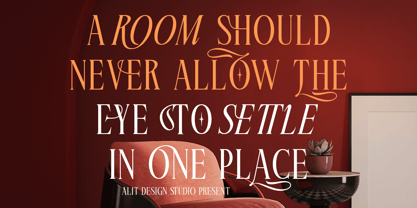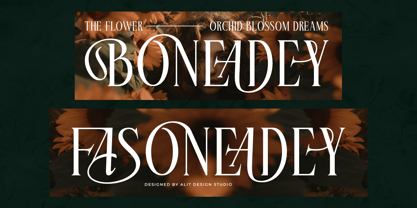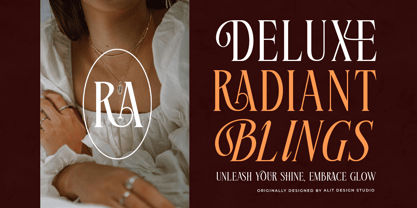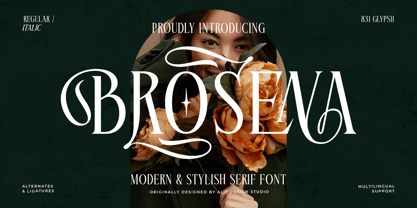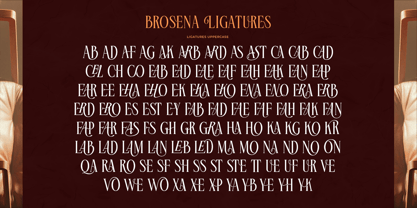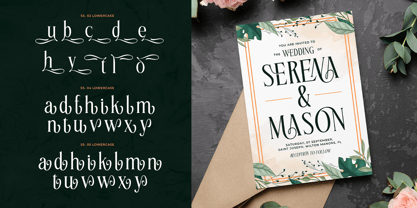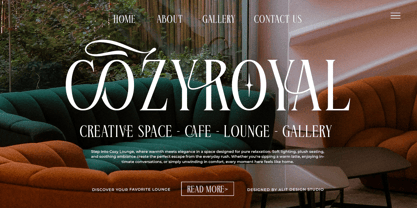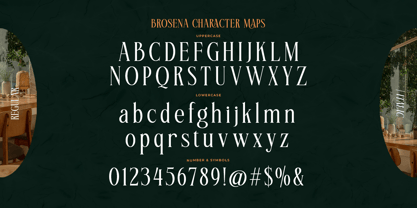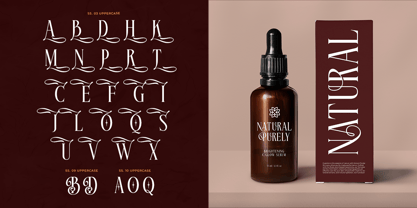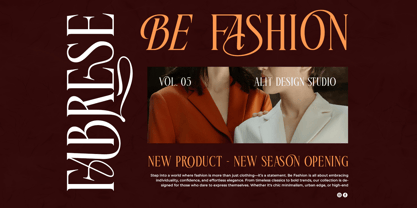
Brosena
The Brosena Font Family was designed by Alit Suarnegara and published by Alit Design. Brosena contains 2 styles and family package options. More about this family
Brosena Typeface
A perfect blend of classic elegance and modern design, Brosena Typeface is a versatile and sophisticated serif font designed to captivate. Whether you’re working on high-end branding, editorial layouts, or creative projects that demand a luxurious touch, Brosena brings unparalleled elegance to the table.
This typeface features two beautifully crafted styles—Regular and Italic—giving you the freedom to mix and match for diverse design needs. Each style is carefully designed with clean lines, subtle contrasts, and soft curves, making Brosena equally suitable for formal applications and creative expressions.
Charming Alternatives & Versatility
What sets Brosena apart are its charming alternative characters, which add unique personality to every project. These alternates provide you with endless opportunities to experiment, ensuring that your designs are both expressive and distinctive. Whether you’re aiming for a minimal and modern look or a decorative and ornate design, Brosena is up to the task.
Preview the Grace
As seen in the preview images, Brosena shines in various applications, such as:
• Luxury branding: Logos, packaging, and stationery that exude class.
• Editorial design: Magazines, book covers, and headlines that demand attention.
• Special occasions: Wedding invitations, greeting cards, and announcements with a timeless touch.
• Artistic expression: Posters, quotes, and social media graphics with a creative flair.
Features at a Glance:
• Elegant serif typeface with a modern aesthetic.
• Two character sets: Regular and Italic.
• Includes charming alternatives for enhanced customization.
• Designed for luxury, style, and versatility.
• Exceptional readability for both print and digital media.
Let Brosena elevate your next design project with its balance of refinement and charm. Whether bold or subtle, this typeface adapts effortlessly to create a lasting impression.